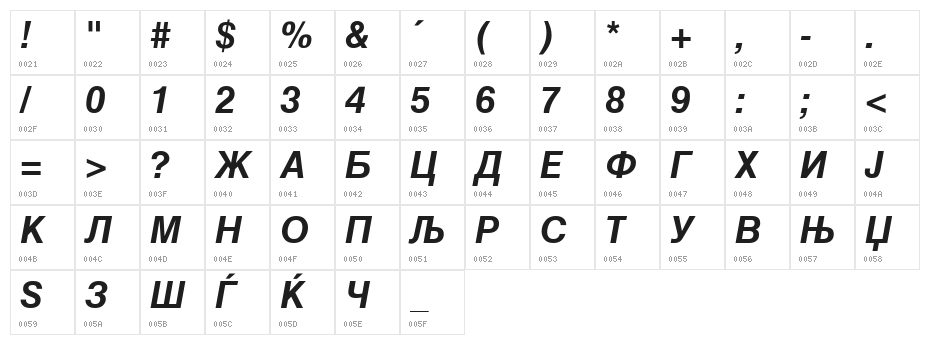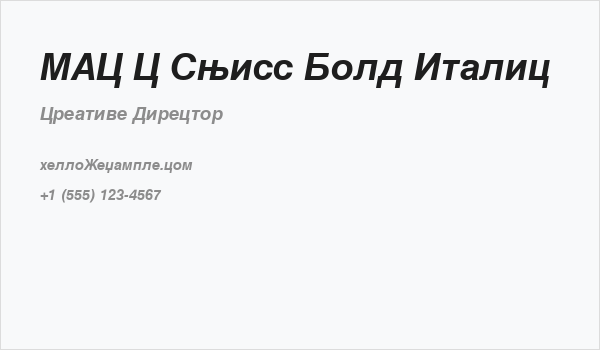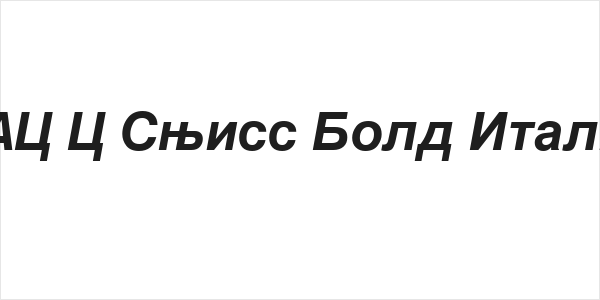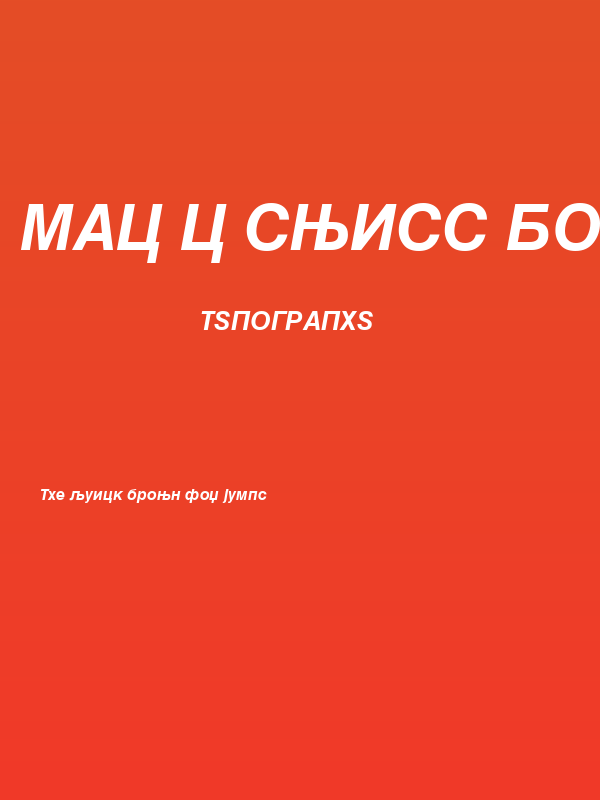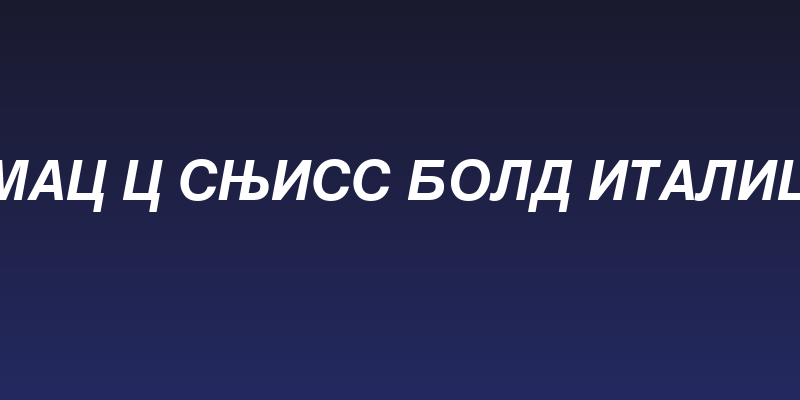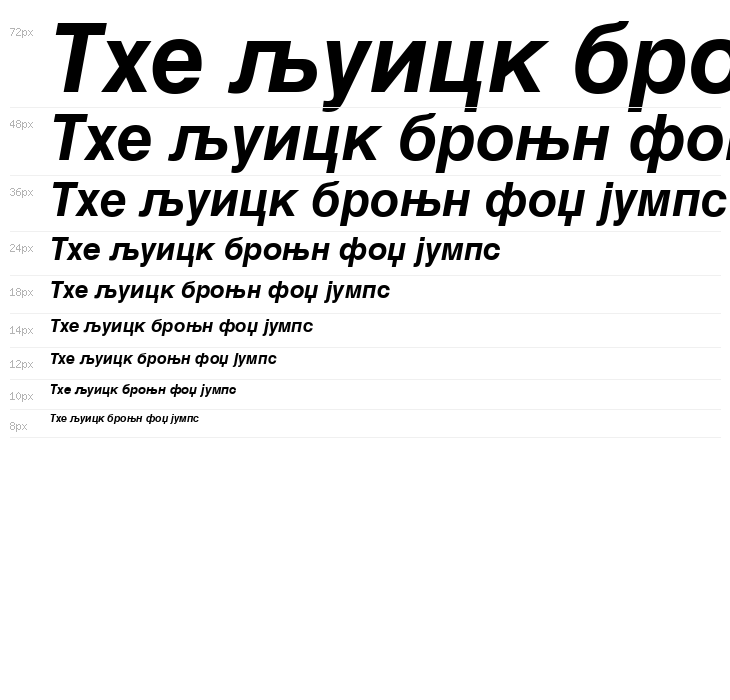
MAC C Swiss Bold Italic Font
MAC C Swiss Bold Italic Description
This font features a bold and italicized style with a modern and clean appearance. The characters are well-defined with a slight slant, giving them a dynamic and forward-moving feel. The uppercase and lowercase letters maintain a consistent style, with smooth curves and sharp edges. The numerals are clear and easy to read, matching the overall boldness of the font. Special characters are included, providing versatility for various uses. The font's design is suitable for making a strong visual impact while maintaining readability.
| Use Case | Headlines, Logos, Advertising |
| Proposed Projects | Ideal for headlines, branding, advertising, and any project requiring a strong, modern typeface. |